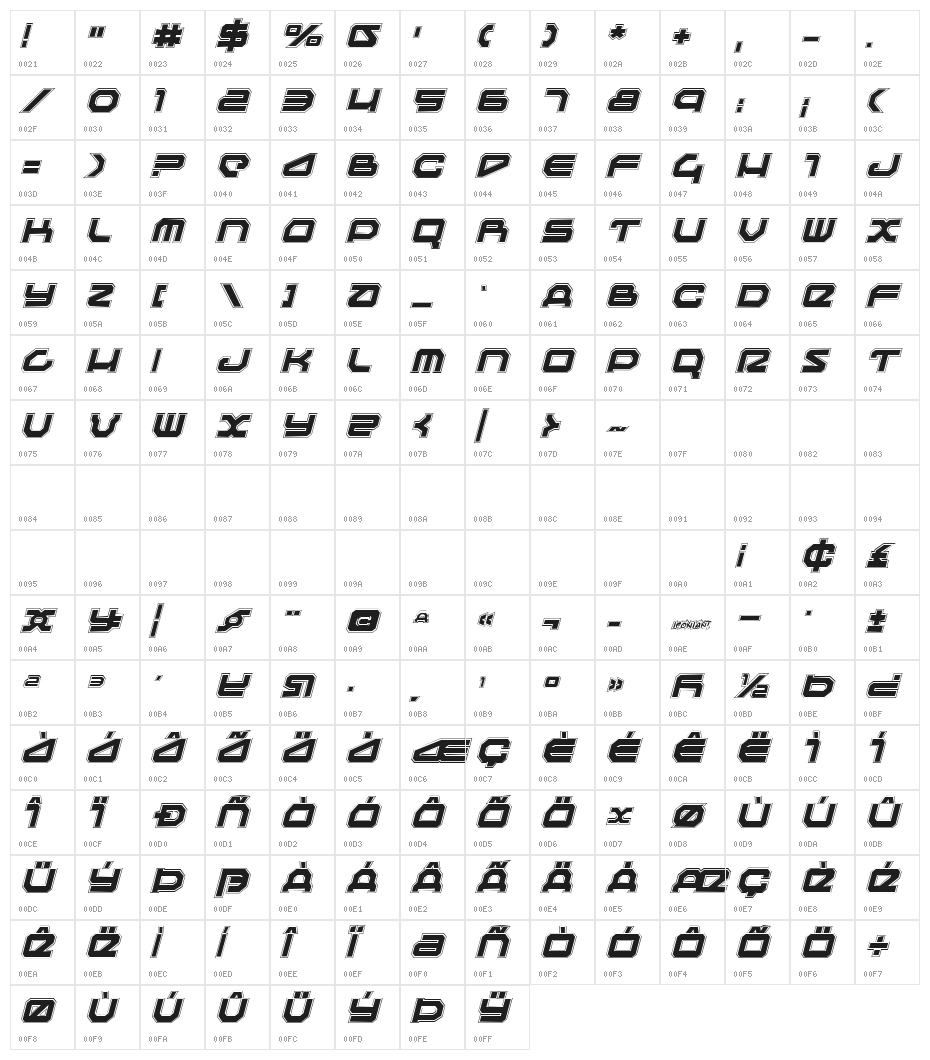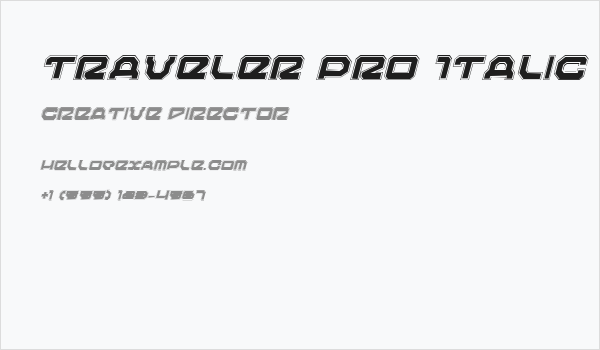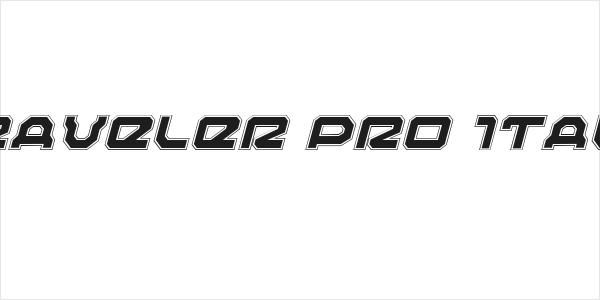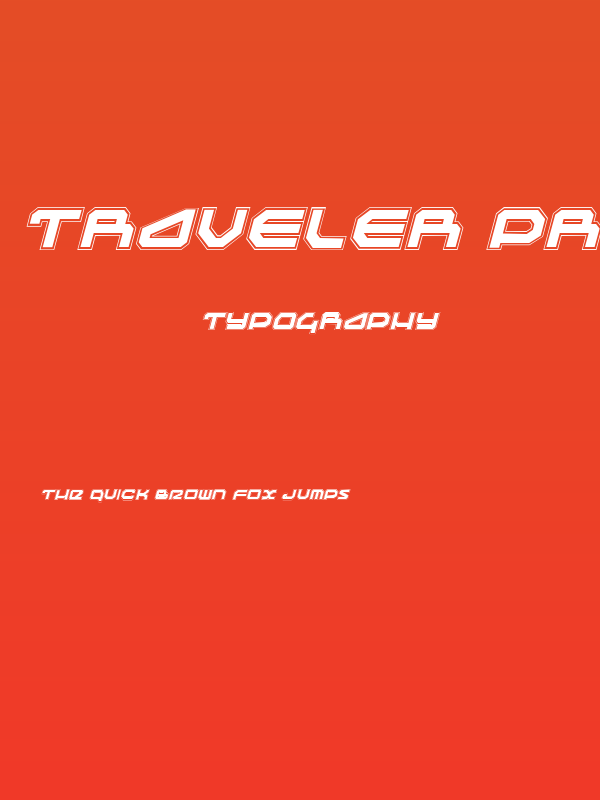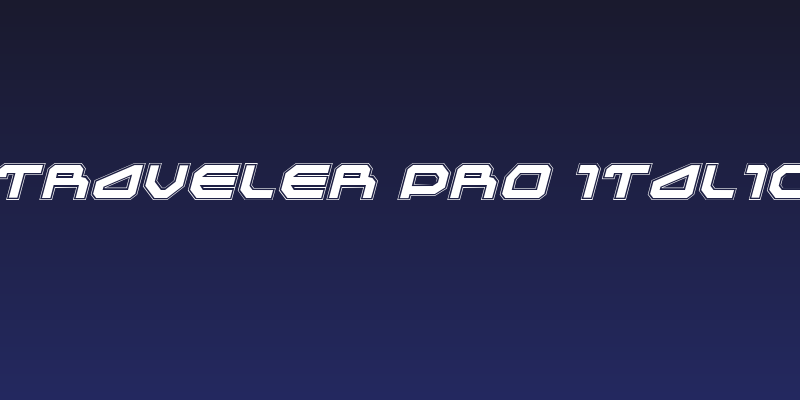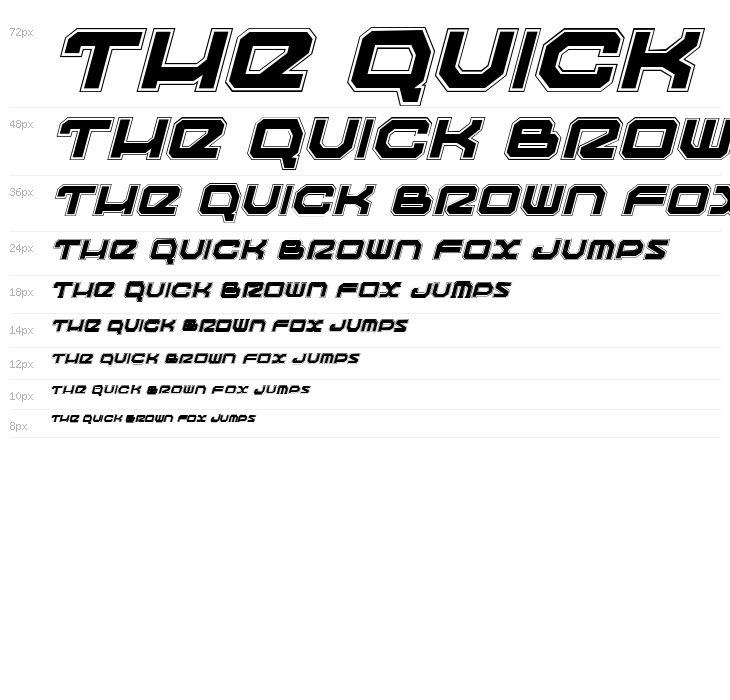
Traveler Pro Italic Font
Traveler Pro Italic Description
This font features a futuristic and dynamic design with a distinct italic slant, giving it a sense of motion and speed. The characters are bold and angular, with a strong geometric influence that is evident in the sharp edges and clean lines. The font has a three-dimensional effect, created by the use of a double outline that adds depth and visual interest. The uppercase and lowercase letters maintain a consistent style, while the numerals and special characters are designed to match the overall aesthetic. This font is ideal for projects that require a modern and edgy look, such as technology branding, sports team logos, or sci-fi themed designs.
| Proposed Projects | Ideal for technology branding, sports logos, sci-fi themes, and dynamic posters. |